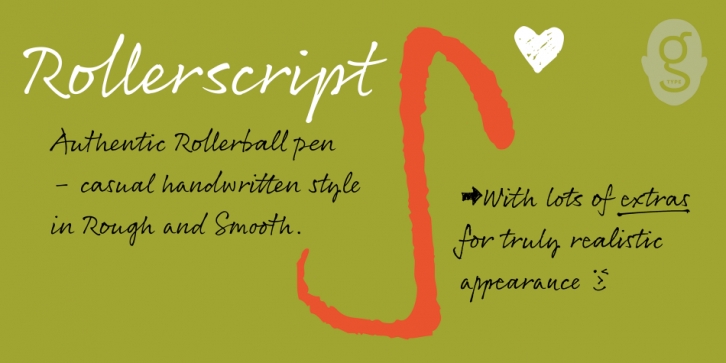
Publisher: G-Type
Designed by Nick Cooke, Rollerscript is a hand drawn font family. This typeface has two styles and was published by G-Type.
As the name suggests, the Rollerscript font was conceived by writing out variations of each character by hand using a roller pen before the scanning and digitising process.
Rollerscript is, in effect, a more modern version of Olicana whose letterforms were drafted using a nibbed pen and ink. Handwriting tends to change depending on what instrument you’re using and with Rollerscript the outcome is decidedly more casual and informal than Olicana, though equally realistic.
Pronounced pressure points where characters start, end or join make for a very authentic hand drawn appearance which is enhanced still further through the use of over 100 standard ligatures. Character pairings like ‘tt’ or ‘gg’ in normal handwriting fonts never look natural but in Rollerscript will now automatically change as you type!
Rollerscript’s handwriting credentials are given a further boost with the inclusion of multiple underlines and sketched icons, arrows and emoticons. You can also choose between Rough and Smooth font styles in the Rollerscript family.
· Rollerscript Rough
· Rollerscript Smooth